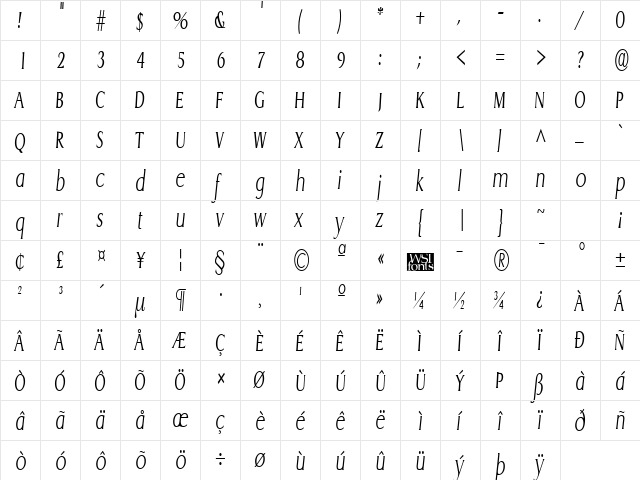
GriffonCondensedLight Italic Font Preview
Design Context for GriffonCondensedLight Typeface
GriffonCondensedLight is a composed and adaptable typeface that performs quietly and consistently across a wide range of design contexts. The dynamic lean of this cut emphasises speed and emphasis in any layout. The delicate stroke weight brings airiness and refinement to layouts. The condensed width makes it efficient for tight spaces without sacrificing legibility.
Pro Tip: Try GriffonCondensedLight for annotation and caption copy alongside an upright companion — the contrast in angle creates a dynamic but ordered typographic system.